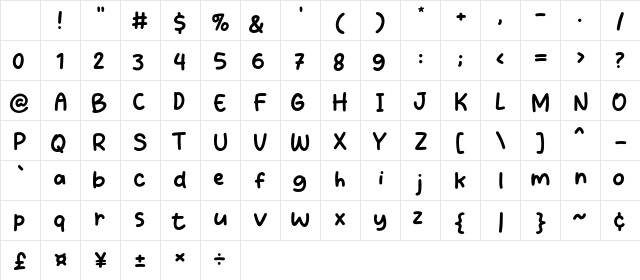
Complete Bang Tamvan Regular glyph index. Displaying only characters natively supported by Bang Tamvan Regular font.
Bang Tamvan is a composed and adaptable typeface that performs quietly and consistently across a wide range of design contexts.